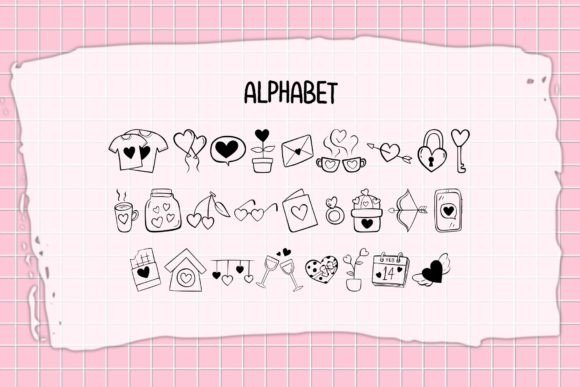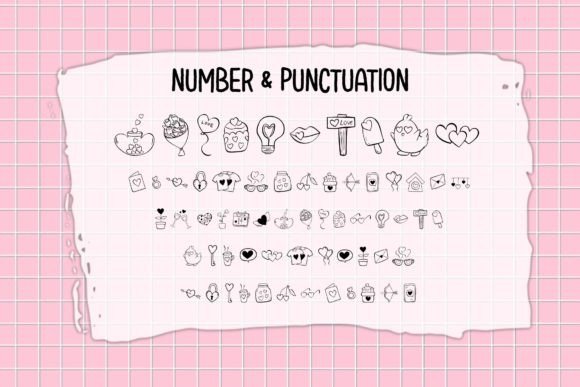
Introducing Happy Valentine Font: The Perfect Addition to Your Valentine’s Day Projects
Are you looking for a unique and playful font to add a touch of whimsy to your Valentine’s Day projects? Look no further than Happy Valentine Font, a funny dingbats font that’s perfect for designers, crafters, and anyone looking to create something special for this heart-filled holiday.
What is Happy Valentine Font?
Happy Valentine Font is a delightful dingbats font that’s designed to bring a smile to your face. This charming font is packed with Valentine’s Day-themed characters, including hearts, flowers, and other sweet symbols that are sure to make your projects stand out.
What Can I Use Happy Valentine Font For?
The possibilities are endless with Happy Valentine Font! This versatile font is perfect for a wide range of projects, including:
- Logos: Add a touch of whimsy to your business logo or create a custom logo for your Valentine’s Day-themed products.
- Wall Art: Create beautiful wall art, posters, or prints featuring Happy Valentine Font’s charming characters.
- Signs: Design eye-catching signs for your store, event, or party with this fun and playful font.
- Cards: Create one-of-a-kind Valentine’s Day cards for your loved ones, complete with custom illustrations and typography.
- Art Prints: Design stunning art prints featuring Happy Valentine Font’s unique characters, perfect for decorating your home or giving as a gift.
- T-Shirts: Add a touch of Valentine’s Day cheer to your t-shirts, hoodies, or other apparel with this fun font.
- Coloring Pages: Create custom coloring pages for kids or adults featuring Happy Valentine Font’s delightful characters.
Why Choose Happy Valentine Font?
So why choose Happy Valentine Font for your Valentine’s Day projects? Here are just a few reasons:
- Unique and Playful: Happy Valentine Font is a one-of-a-kind dingbats font that’s sure to add a touch of whimsy to your projects.
- Versatile: This font is perfect for a wide range of projects, from logos and wall art to cards and coloring pages.
- High-Quality: This font is designed to deliver high-quality results, ensuring that your projects look professional and polished.
Tips and Tricks for Using Happy Valentine Font
To get the most out of Happy Valentine Font, here are a few tips and tricks to keep in mind:
- Experiment with Different Sizes: Try using Happy Valentine Font in different sizes to create visual interest and add emphasis to your projects.
- Combine with Other Fonts: Pair Happy Valentine Font with other fonts to create a unique and eye-catching look.
- Use with Bright Colors: Happy Valentine Font looks amazing with bright, bold colors, so don’t be afraid to get creative with your color palette.
| Font Name | Happy Valentine Font |
| Author | DREAMs Soul G. |